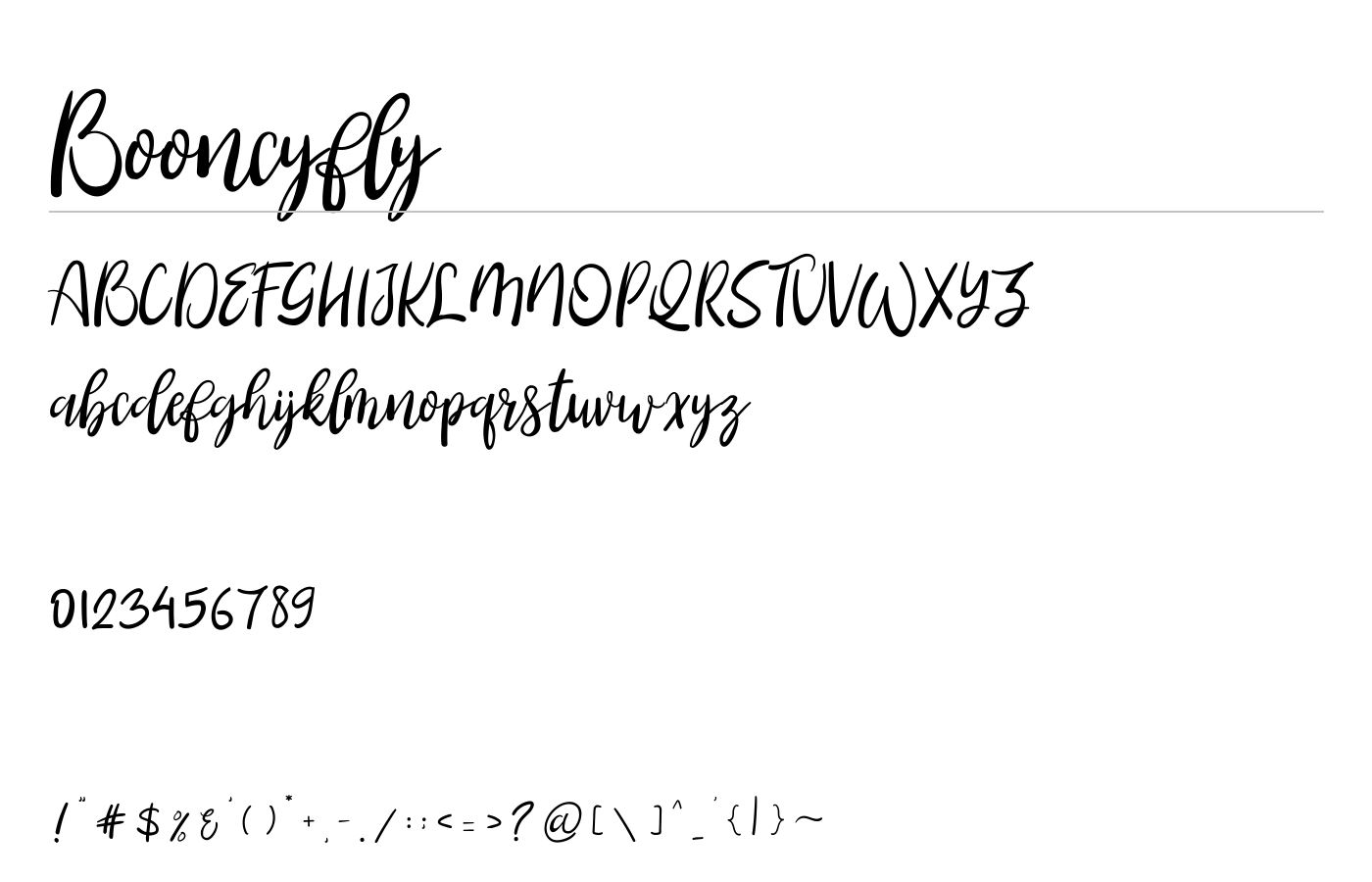
Booncyfly is a lively, handwritten script font with a smooth, flowing style that combines both playful and elegant vibes. Its medium weight and slightly condensed letterforms, along with the graceful strokes and loops, make it perfect for creative projects like invitations, branding, and social media graphics where a personal, friendly touch is desired. With its clear legibility and charming character, Booncyfly works well in headlines and decorative text, adding a warm and approachable feel.